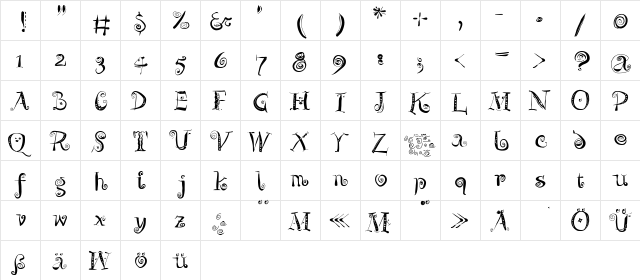
ZeitGeisterbahn Regular
Design Context for ZeitGeisterbahn Typeface
ZeitGeisterbahn is a composed and adaptable typeface that performs quietly and consistently across a wide range of design contexts.
Pro Tip: Use ZeitGeisterbahn in both headline and body roles to test its range before committing to a single application.